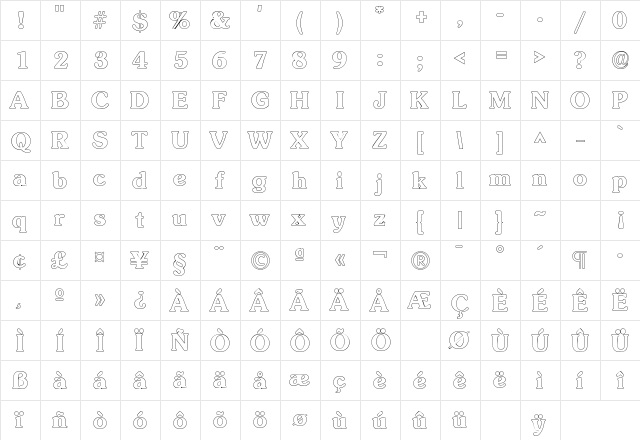
Boulevard Outline SF Regular
Design Context for Boulevard Outline SF Typeface
Boulevard Outline SF is built around its visual character rather than neutral utility — its distinctive forms are designed to make an impression at display sizes.
Font Pairing: Pair with a clean neutral sans-serif for body copy to let Boulevard Outline SF's character lead without overwhelming the composition.
Pro Tip: Use Boulevard Outline SF exclusively at display sizes — it was designed to be seen, not read at length. Let a neutral companion handle body copy.